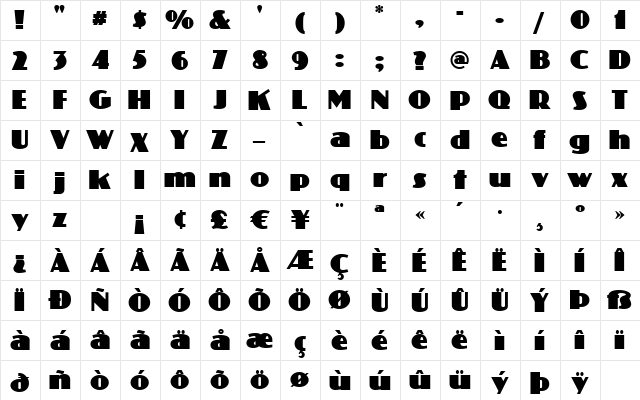
PhattPhreddy Regular
Design Context for PhattPhreddy Typeface
PhattPhreddy is a composed and adaptable typeface that performs quietly and consistently across a wide range of design contexts.